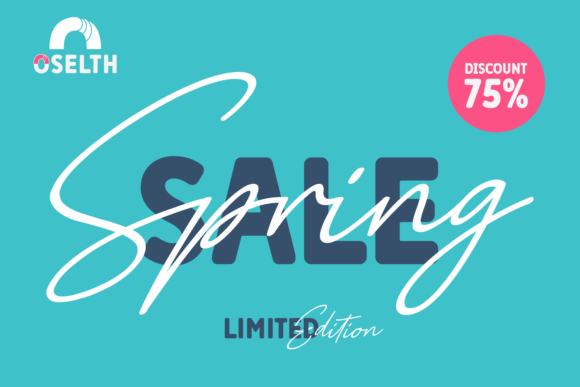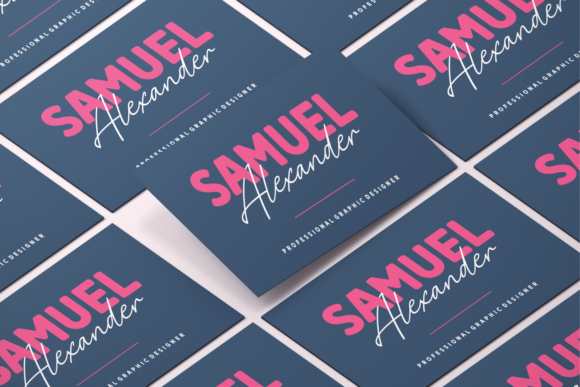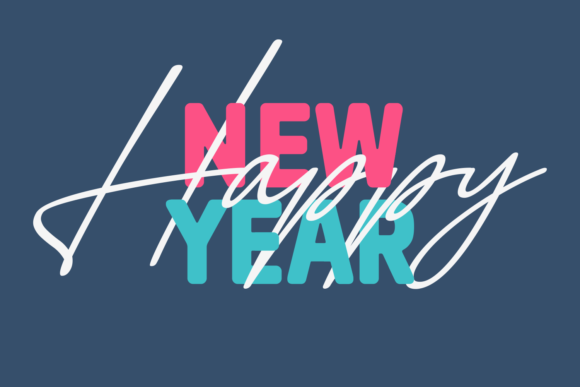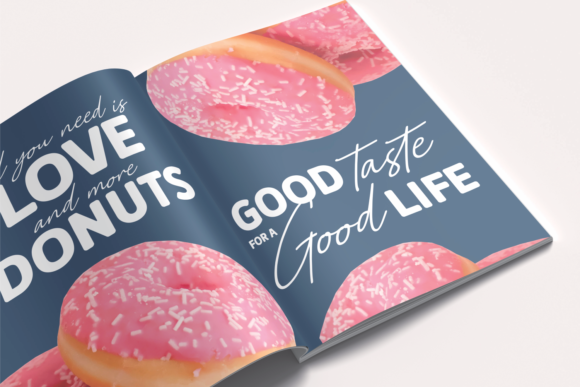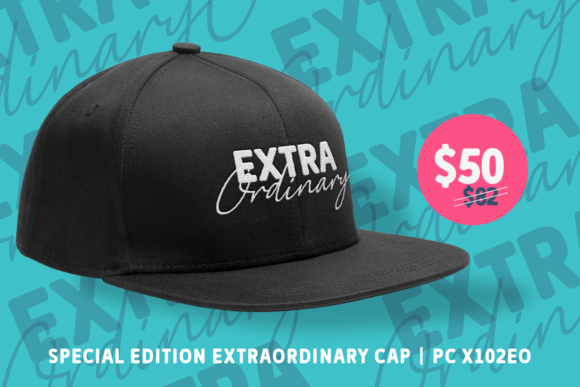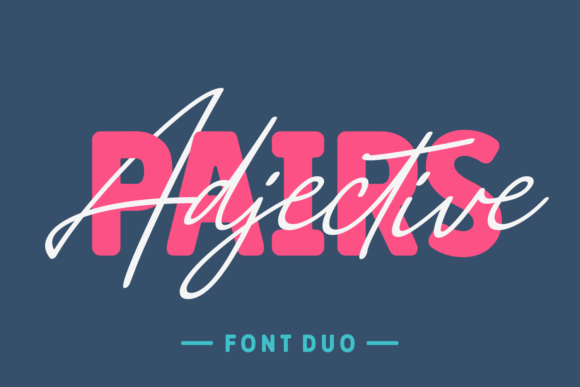
Introducing Adjective Pairs Font: A Lovely, Versatile Duo for Your Design Projects
Are you tired of using the same old fonts in your design projects? Look no further! Adjective Pairs Font is a beautiful, versatile duo font that combines the elegance of script with the simplicity of sans serif. This stunning font features a variety of elements, including thin and thick letters, making it perfect for a wide range of design applications. In this article, we’ll take a closer look at Adjective Pairs Font and explore its features, benefits, and uses.
A Unique and Versatile Font Duo
Adjective Pairs Font is a duo font that consists of two complementary fonts: a lovely script font and a clean sans serif font. The script font is perfect for adding a touch of elegance and sophistication to your designs, while the sans serif font provides a modern and minimalist look. The combination of these two fonts creates a unique and versatile font duo that can be used in a variety of design projects, from branding and packaging to wedding invitations and digital marketing materials.
Adjective Pairs Font
Key Features of Adjective Pairs Font
So, what makes Adjective Pairs Font so special? Here are some of its key features:
• Thin and Thick Letters: The font features a range of thin and thick letters, which add a touch of elegance and sophistication to your designs.
• Script and Sans Serif: The duo font includes both a script and sans serif font, making it versatile and perfect for a wide range of design applications.
• Variety of Elements: The font includes a range of elements, such as swashes, flourishes, and ligatures, which can be used to add visual interest to your designs.
• Easy to Read: The font is designed to be easy to read, making it perfect for body text and headlines.
Benefits of Using Adjective Pairs Font
So, why should you choose Adjective Pairs Font for your design projects? Here are some of the benefits of using this lovely font duo:
• Unique and Creative: Adjective Pairs Font is a unique and creative font duo that will help your designs stand out from the crowd.
• Versatile: The font duo is perfect for a wide range of design applications, from branding and packaging to wedding invitations and digital marketing materials.
• Elegant and Sophisticated: The script font adds a touch of elegance and sophistication to your designs, while the sans serif font provides a modern and minimalist look.
• Easy to Use: The font is easy to use and comes with a range of features, such as swashes and ligatures, which make it easy to add visual interest to your designs.
Using Adjective Pairs Font in Your Design Projects
So, how can you use Adjective Pairs Font in your design projects? Here are some ideas to get you started:
• Branding and Packaging: Use Adjective Pairs Font to create stunning brand identities and packaging designs that will help your clients stand out from the competition.
• Wedding Invitations: The script font is perfect for creating beautiful wedding invitations and other stationery items.
• Digital Marketing Materials: Use the sans serif font to create modern and minimalist digital marketing materials, such as social media graphics and email newsletters.
• Signage and Displays: The font duo is perfect for creating eye-catching signage and displays that will grab attention and communicate your message effectively.
Font Name Adjective Pairs Font
Author Situjuh
In conclusion, Adjective Pairs Font is a lovely, versatile duo font that is perfect for a wide range of design applications. With its unique combination of script and sans serif fonts, thin and thick letters, and variety of elements, this font duo is sure to add a touch of elegance and sophistication to your designs. Whether you’re a designer, craft, or DIY enthusiast, Adjective Pairs Font is a great addition to your font collection. So why wait? Download Adjective Pairs Font today and start creating stunning designs that will leave a lasting impression!